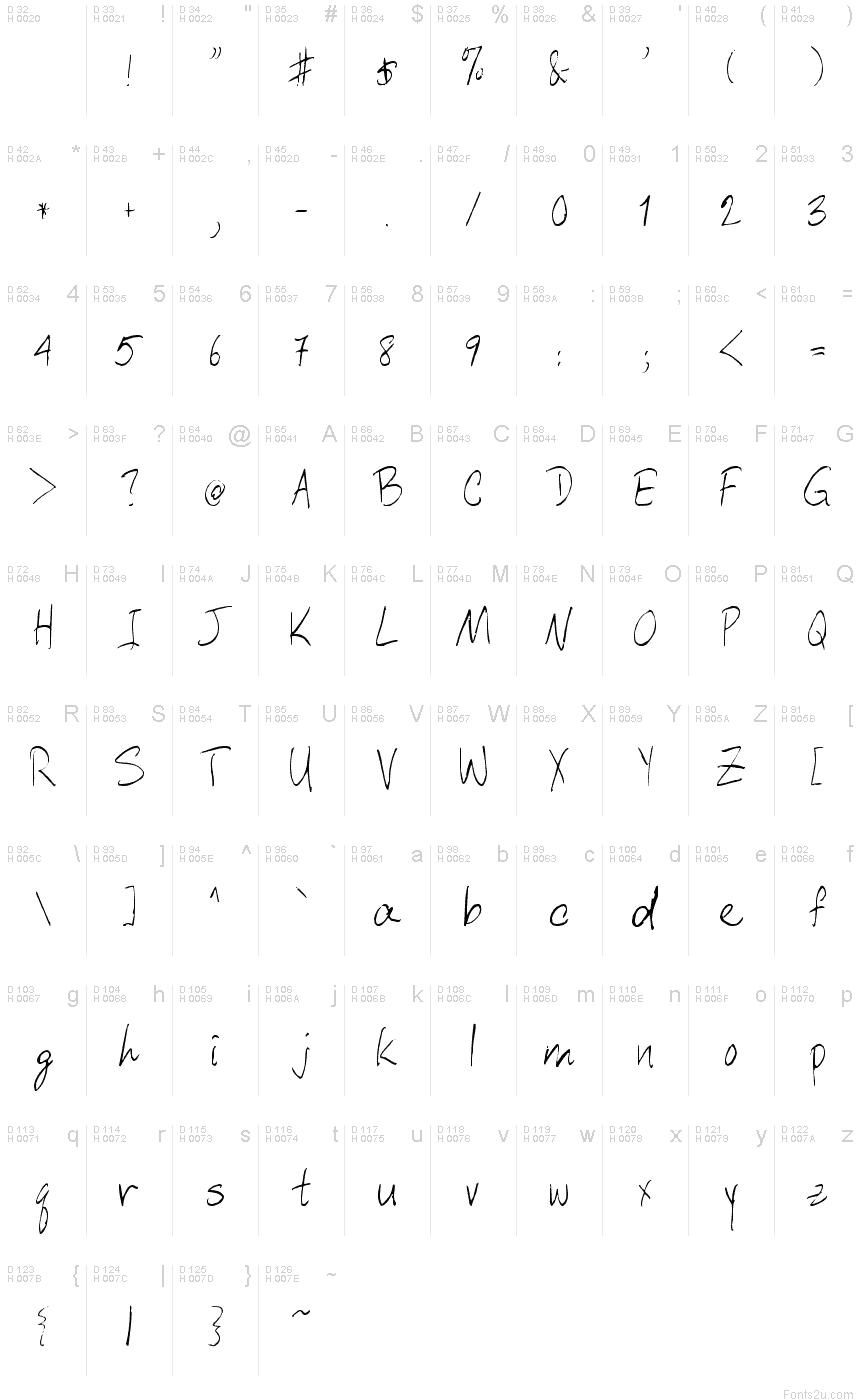
DCWri Regular
Davys Crappy Writing font by D. Rakowski is a free handwritten typeface with the scruffy charm of a real ink pen racing across the page. Tall, slightly wobbly letters and slim strokes mimic quick, casual handwriting, but the spacing stays open enough to read at a glance. It’s that rare handwriting style that feels genuinely unpolished and human without dissolving into chaos, giving your work a candid, in-the-moment voice.
Using Davys Crappy Writing, your notes, captions, and side comments look like they were actually scribbled in the margins. This free font works beautifully for digital planners, study notes, comic asides, zines, informal posters, and social media graphics that need a personal touch. Pair Davys Crappy Writing with a clean sans serif for body copy and keep Davys Crappy Writing slightly larger, so its wiry lines and lively rhythm stay crisp and legible.